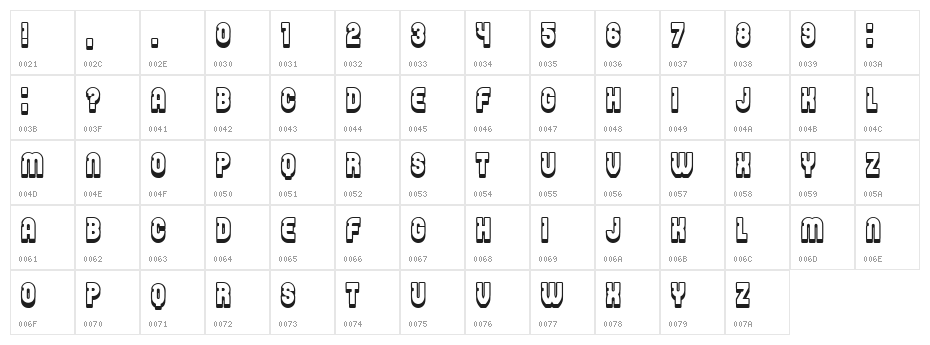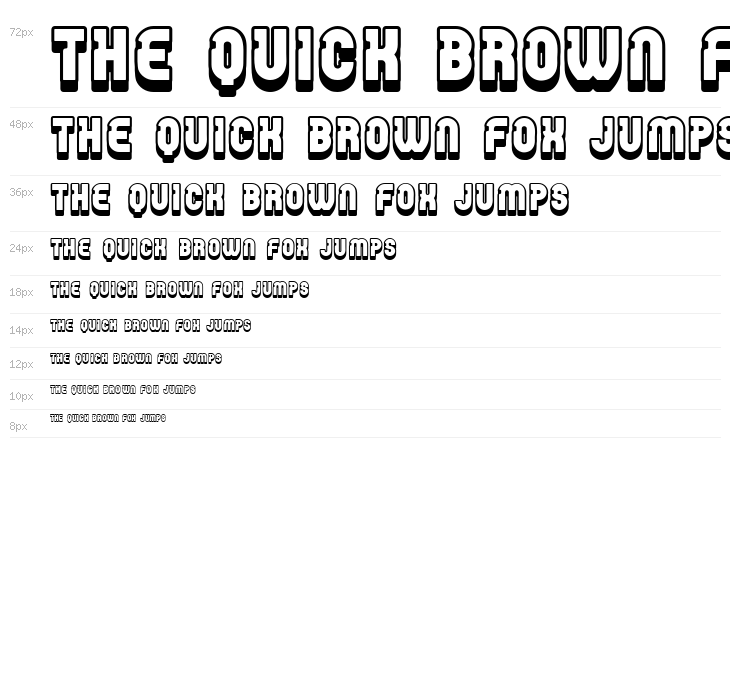
Password Regular Font
| Gesamtstil | Retro, Playful |
| Vorgeschlagene Projekte | Ideal for retro-themed designs, video game graphics, posters, and signage that require a bold and playful aesthetic. |